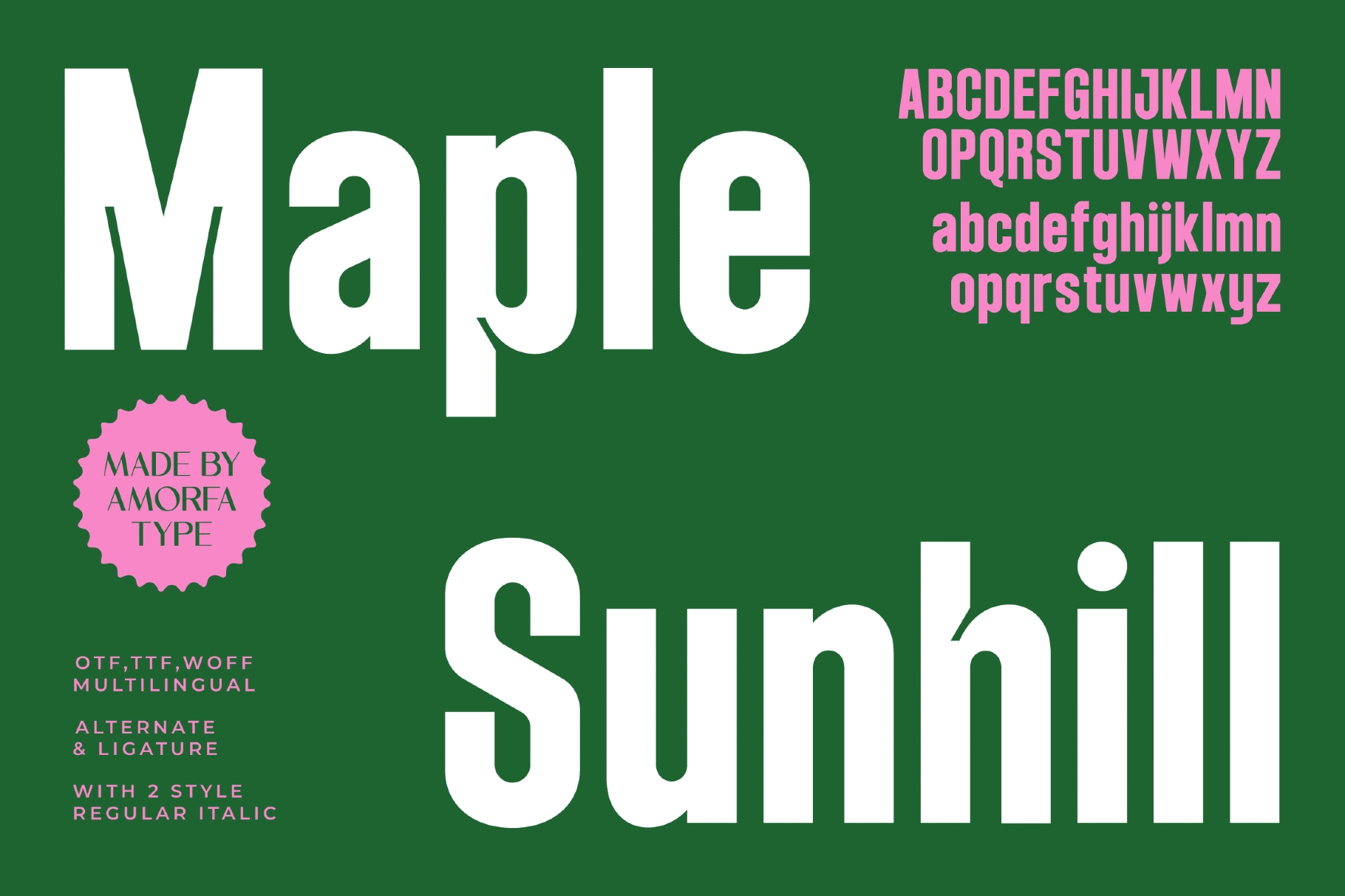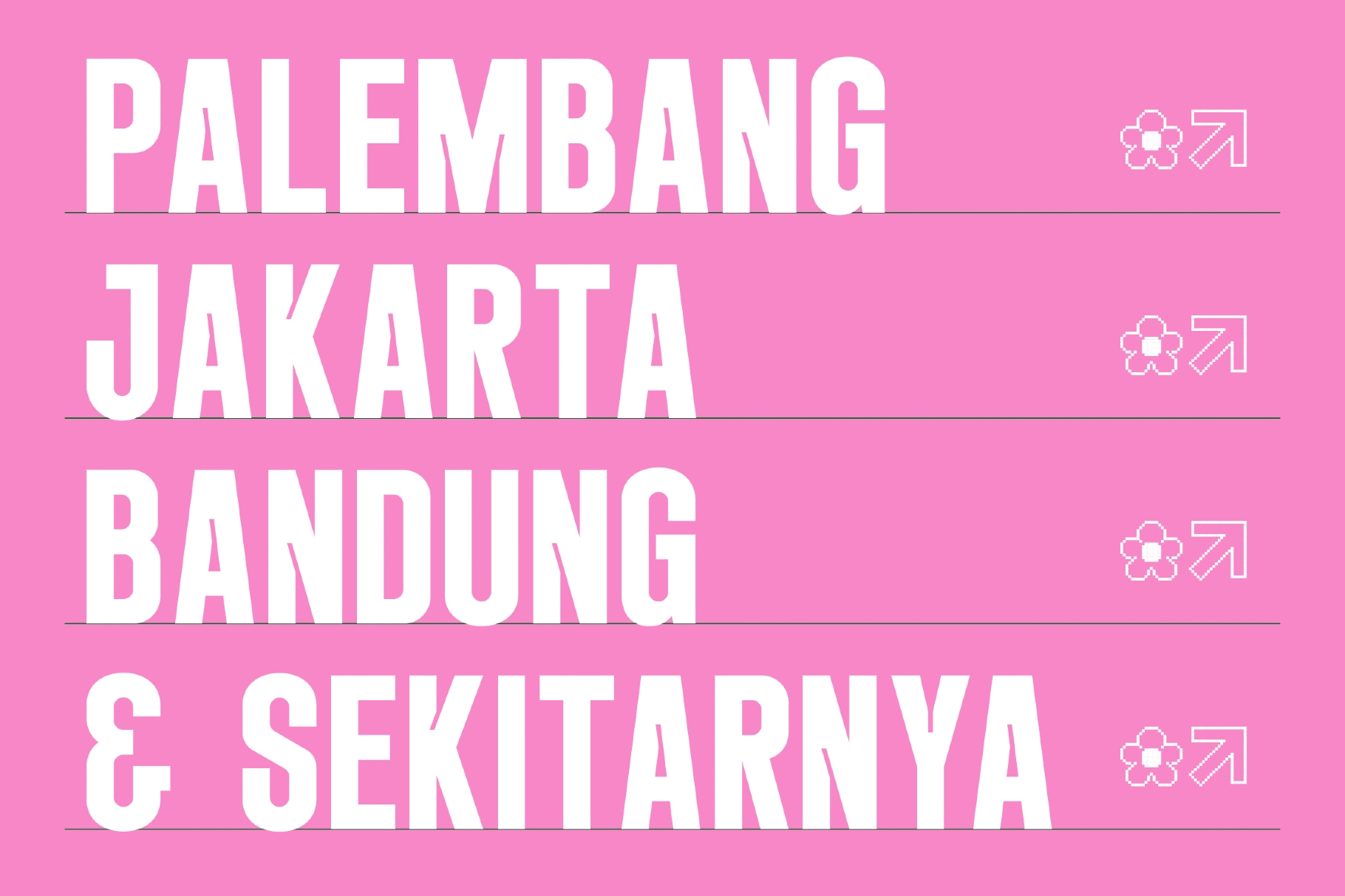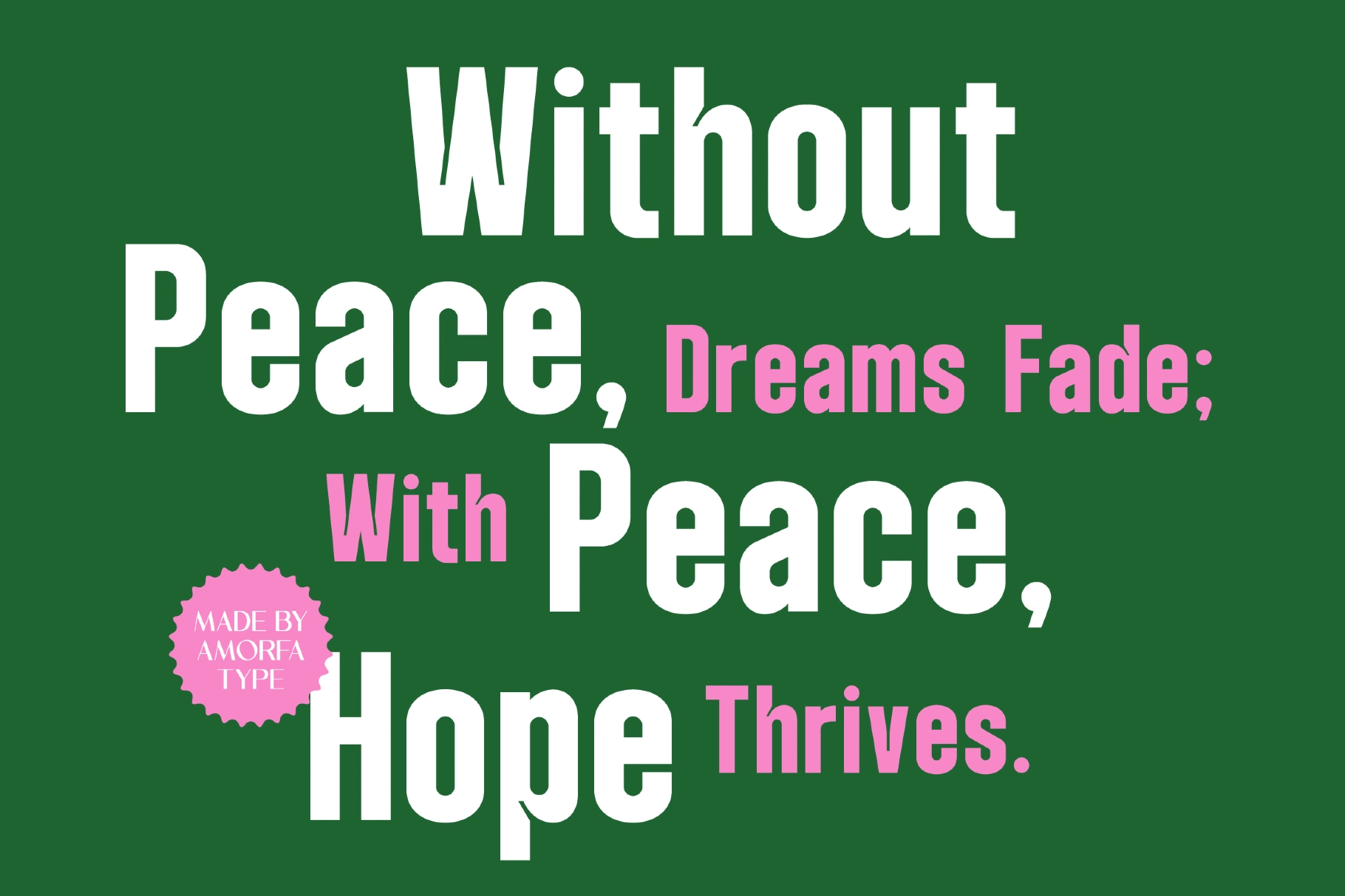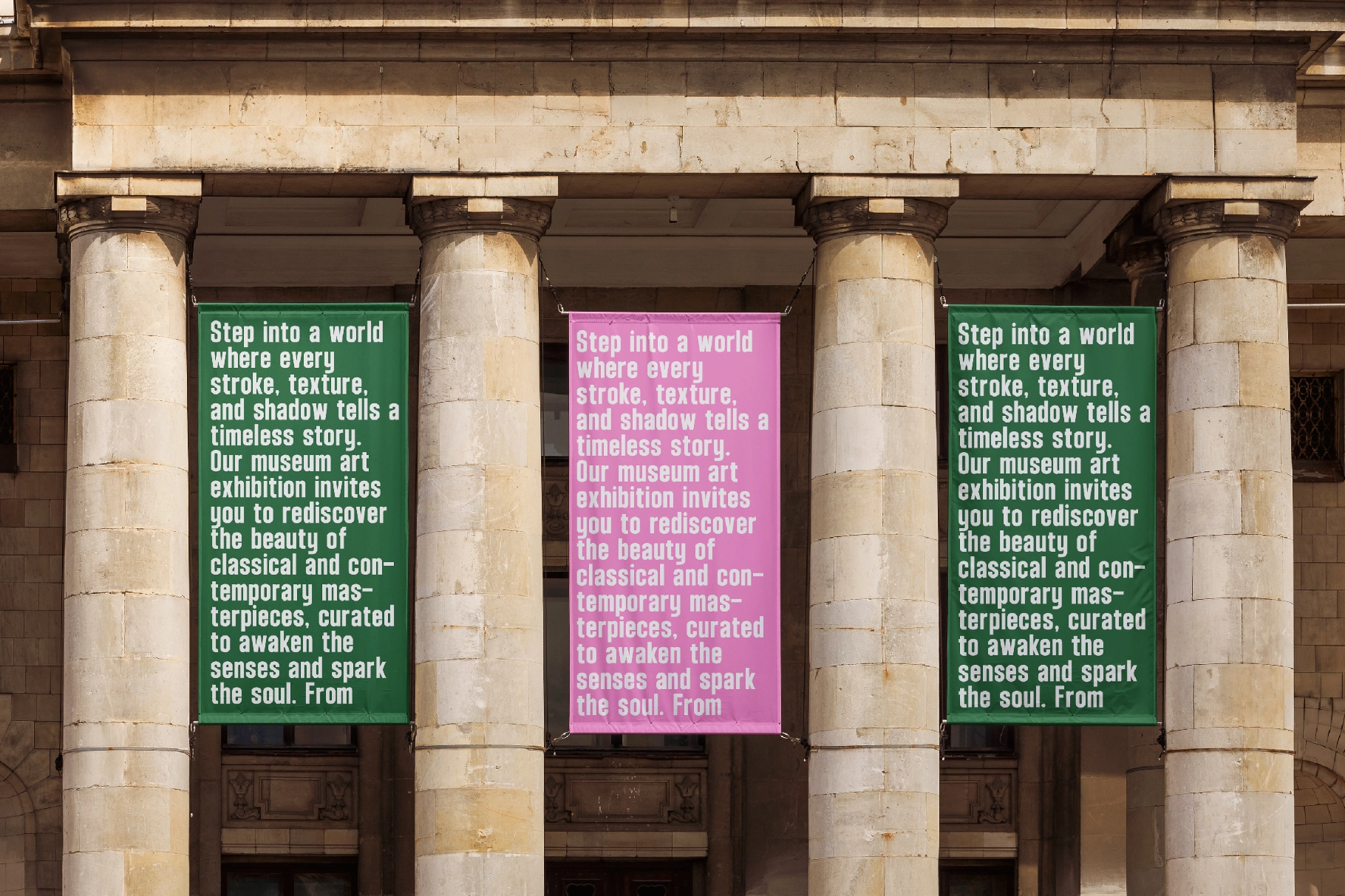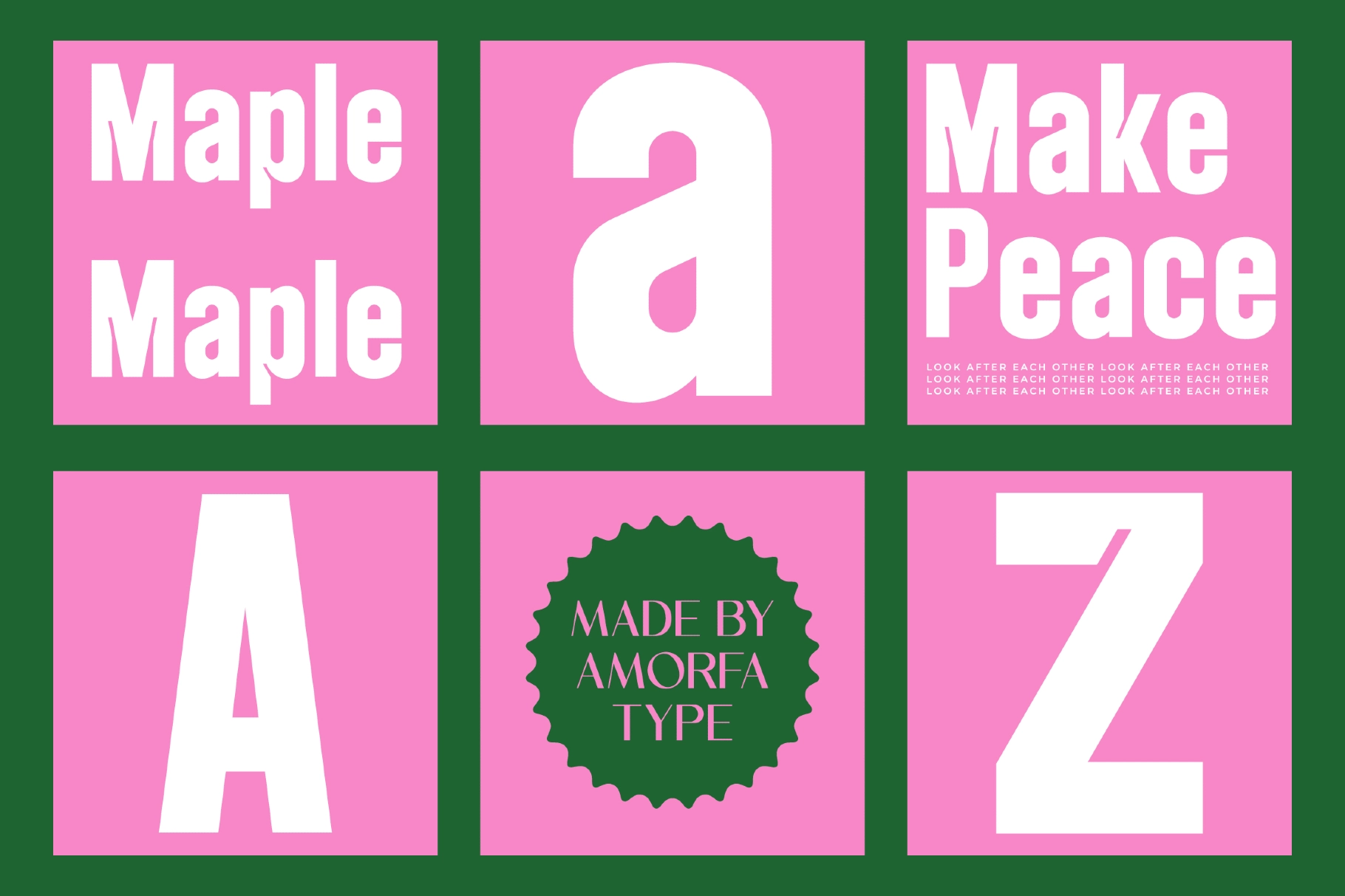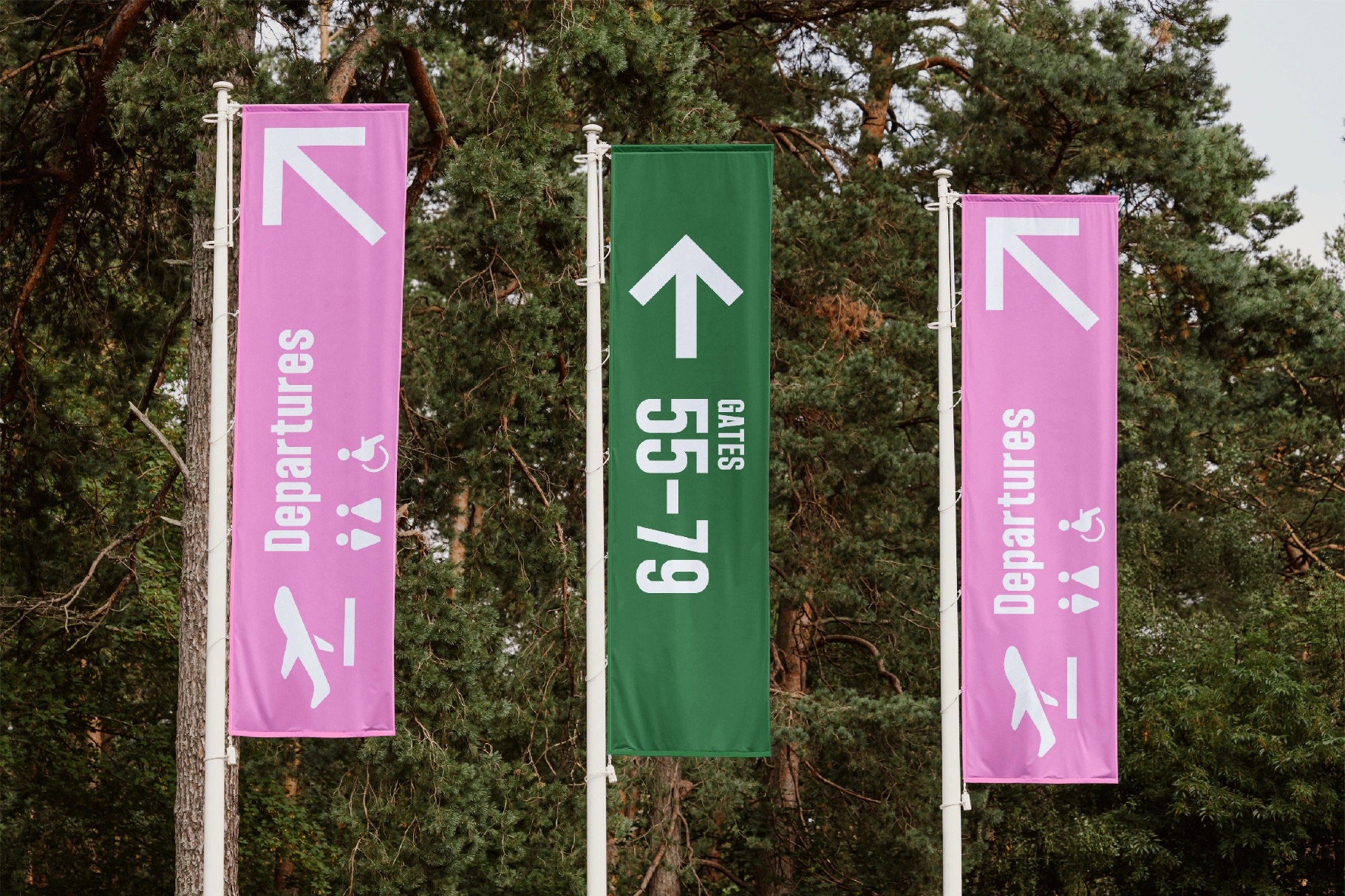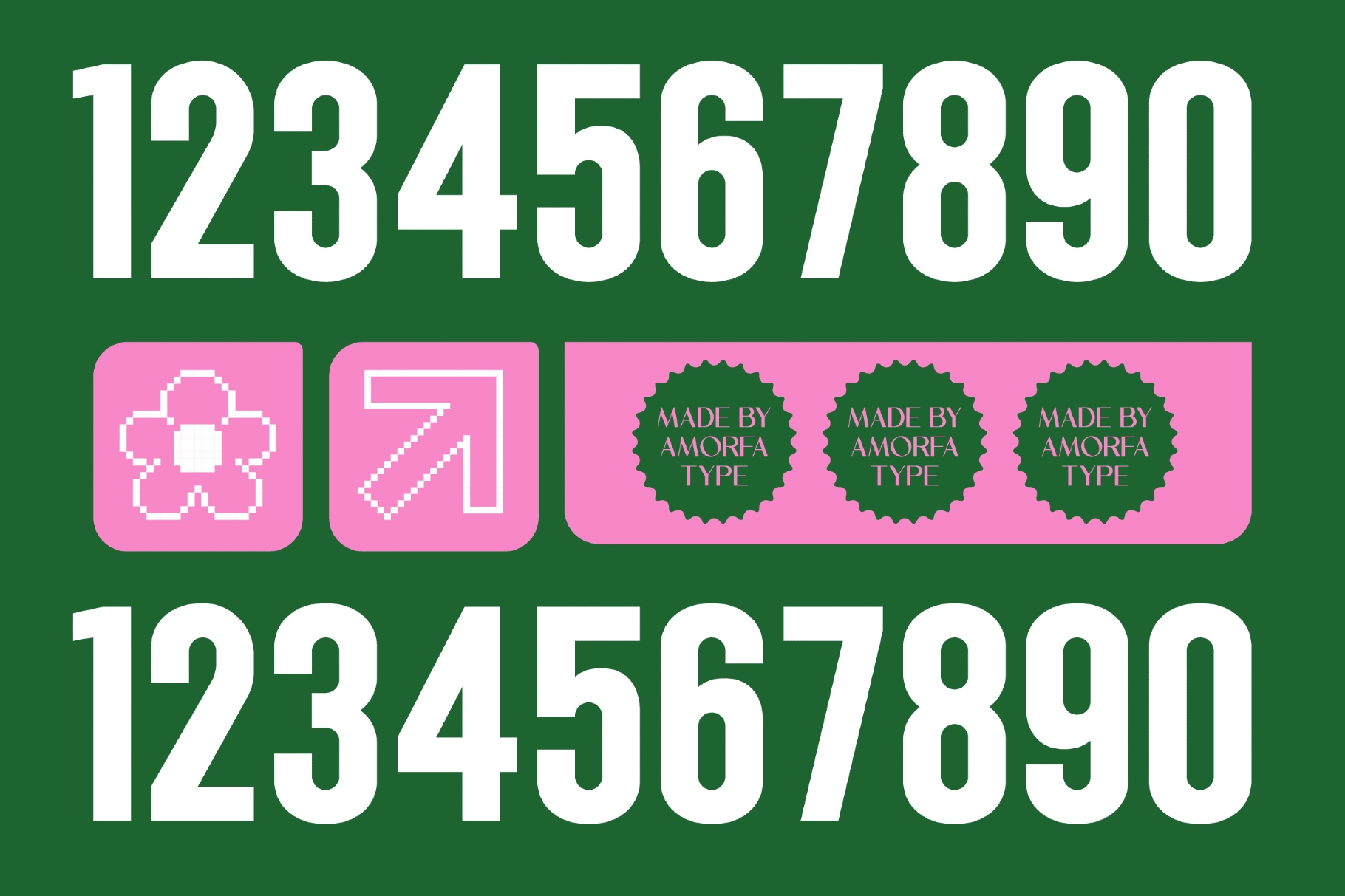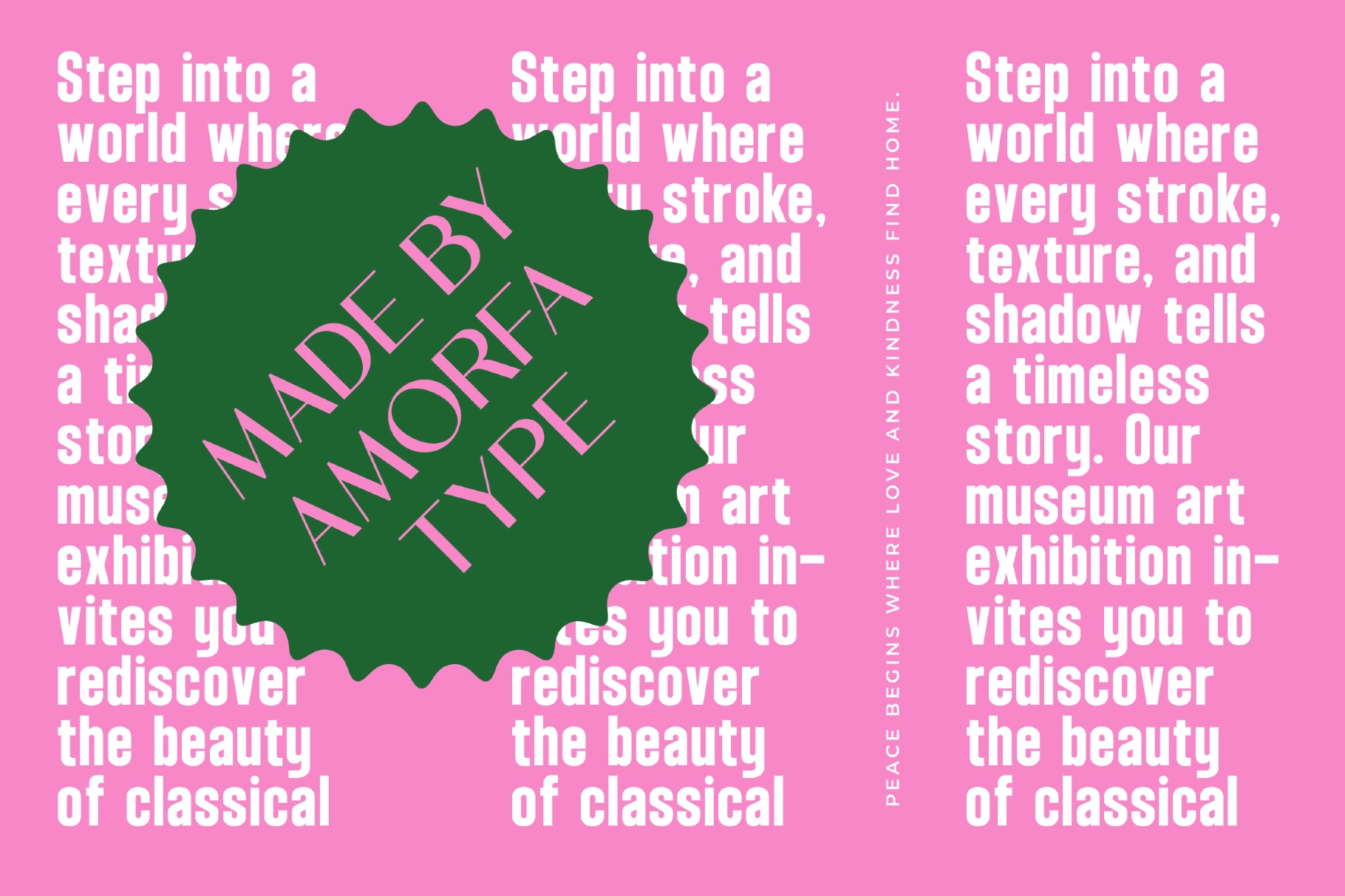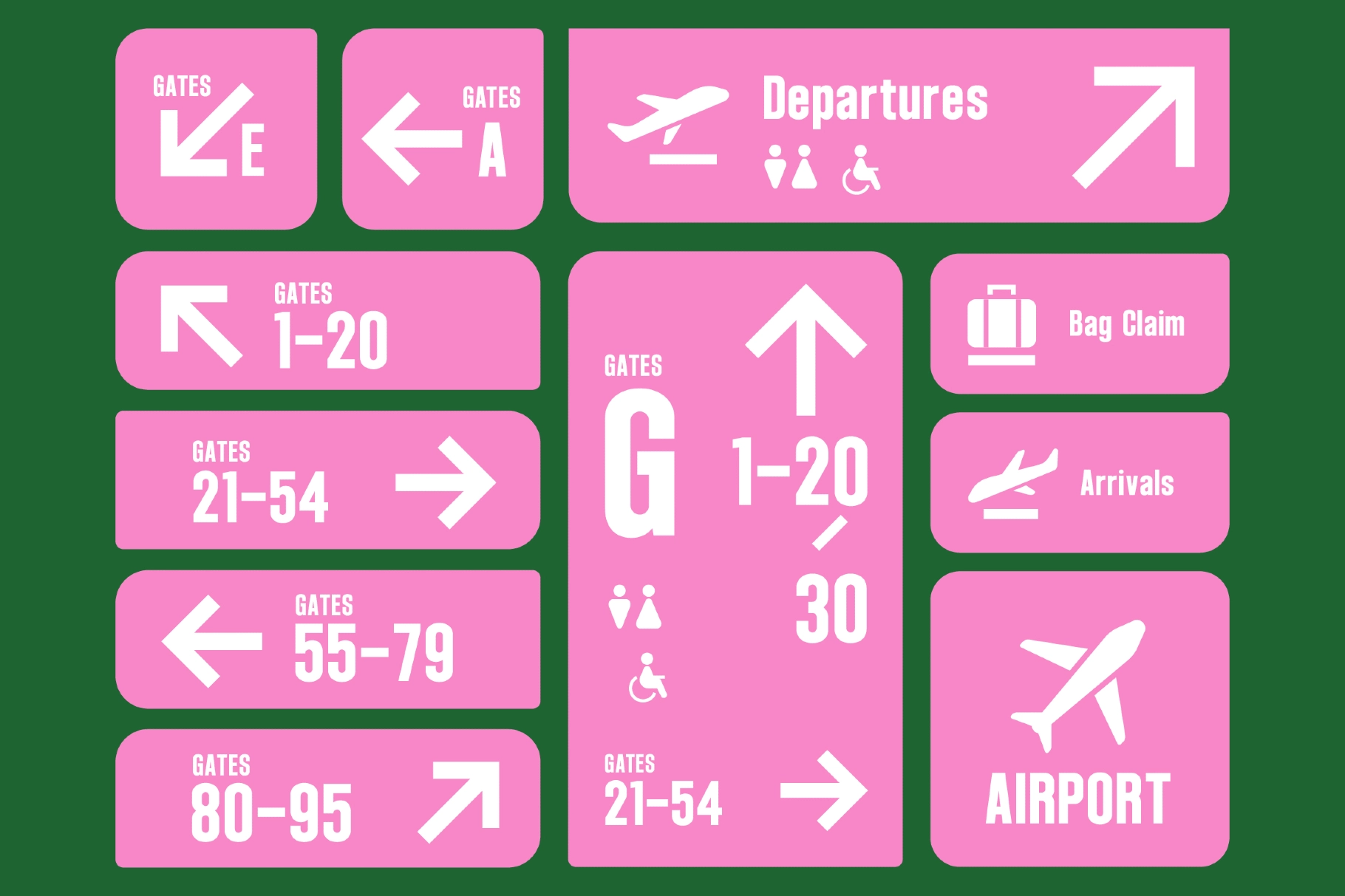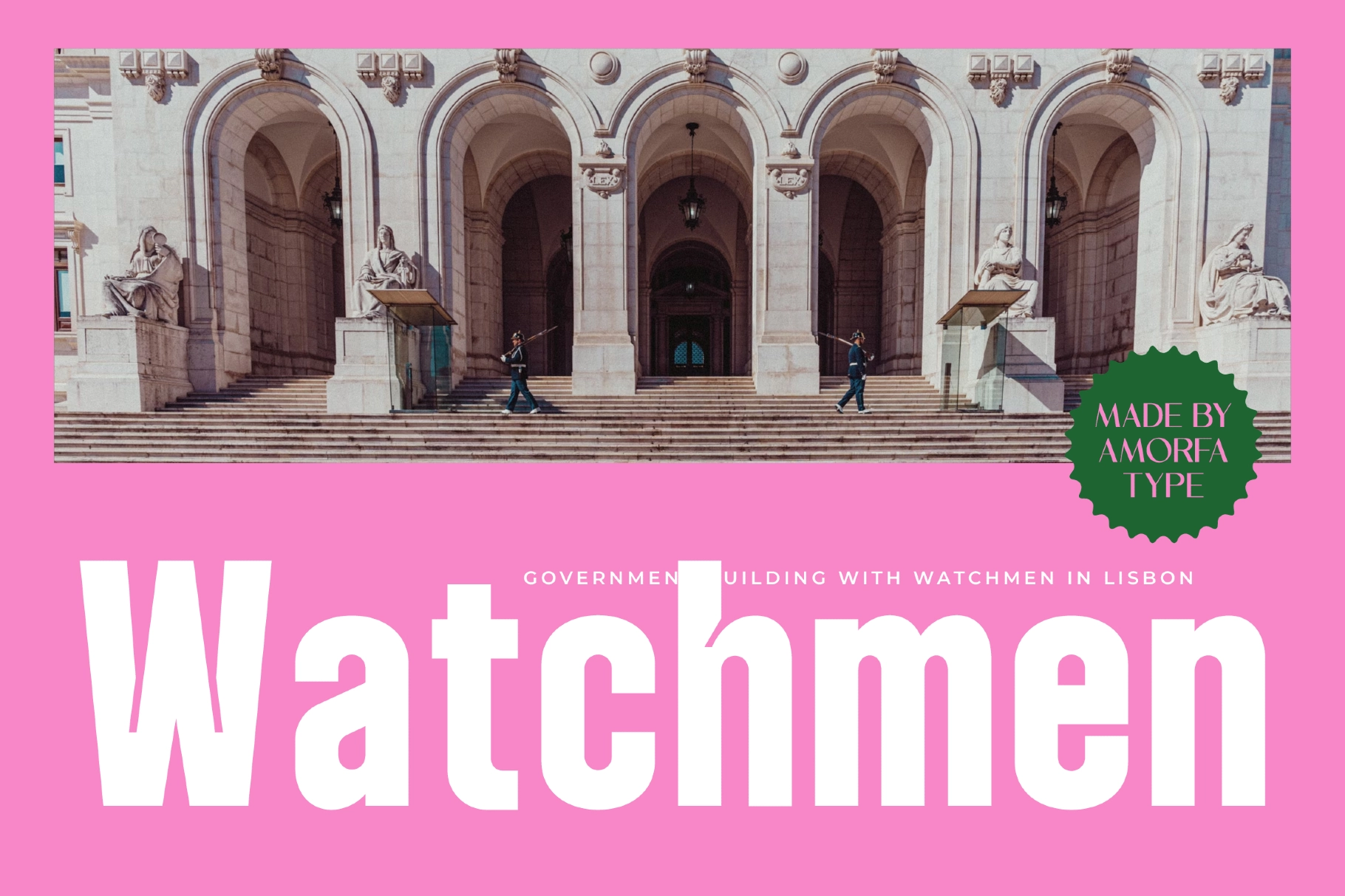
Maple Sunhill - Bold Sans Display Font
This bold sans serif typeface is loud, sturdy, and unapologetically graphic, with tall condensed shapes and heavy letterforms made for quick visual impact. Its crisp counters, firm verticals, and sharp alternate details give it a poster-ready attitude with a clean commercial finish.
Maple Sunhill is built for logos, campaign headlines, music posters, sports graphics, streetwear branding, editorial covers, packaging labels, website hero text, social media posts, event flyers, signage, stickers, badges, and more. The alternate characters add extra personality for custom wordmarks and punchy display layouts, while the italic style gives titles a sharper forward push.